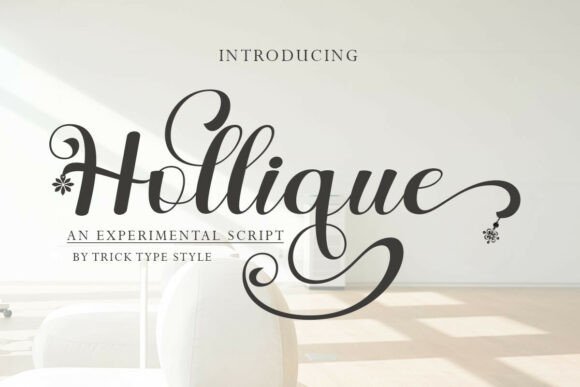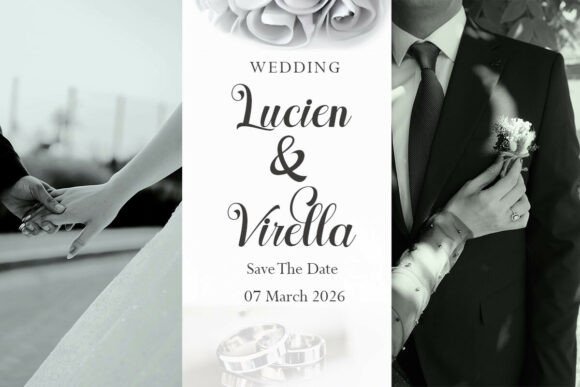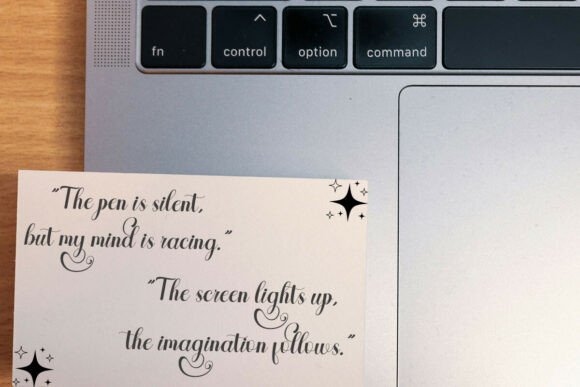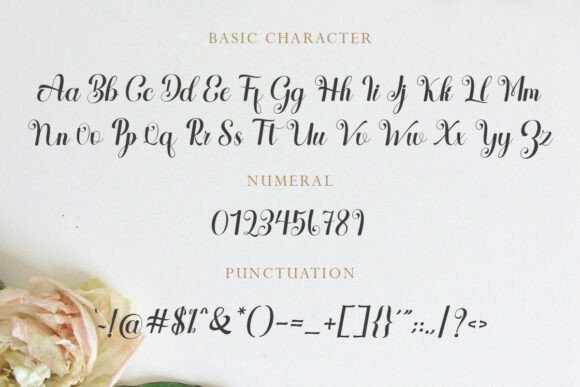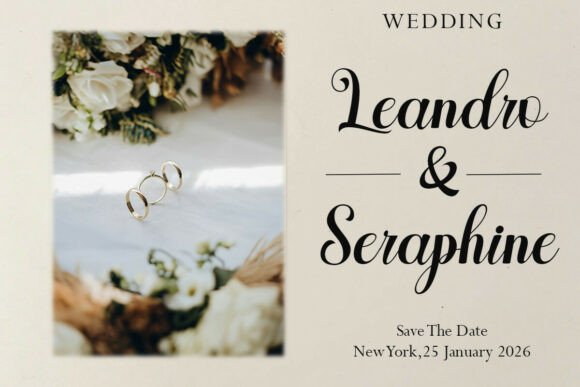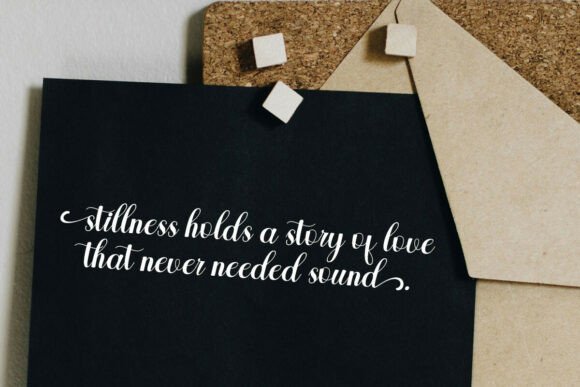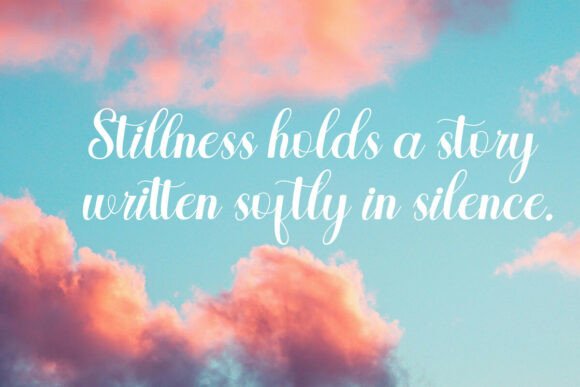
Discover the Art of the Dramatic: Introducing the Hollique Font
Imagine you’re working on a luxury event branding project, and you need a font that exudes opulence and sophistication. You’re browsing through your favorite font libraries, and suddenly, you stumble upon a font that transports you to a world of high fantasy and romance. This is the moment when the Hollique Font reveals itself, with its exaggerated swashes, ornate terminals, and intricate floral motifs.
The Hollique Font is an experimental script typeface that pushes the boundaries of traditional calligraphy. Its high weight and dramatic loops make it perfect for designs that require a bold statement. With its PUA-encoded glyphs, swashes, and alternate characters, you’ll have endless possibilities to customize your creations. Whether you’re working on a premium wine label or a theatrical title, the Hollique Font is sure to make your designs stand out.
Hollique Font Key Features
- Unique Characteristics: The Hollique font features a unique blend of elegant and modern design elements, making it perfect for luxury and high-end branding
- Language Support: Supports multiple languages, including Latin, Cyrillic, and Greek scripts
- Kerning and Ligatures: Includes advanced kerning and ligature pairs for smooth text rendering
Hollique Font Review
Overall, I think the Hollique font is a beautiful and elegant addition to any design project. ✨ It has a unique, handwritten feel that adds a touch of sophistication and whimsy to any text.
- ✨ Elegant and refined design that adds a touch of luxury to any text
- ✨ Perfect for use in branding, packaging, and editorial design
- ✨ Highly customizable, with a range of weights and styles to choose from
- ⚠️ Limited to a single font family, which may not be suitable for projects that require multiple font styles
- ⚠️ Not as versatile as some other fonts, which may limit its use in certain design contexts
- ⚠️ Some users may find the font’s handwritten feel too cursive or ornate for certain design applications
Overall, I think the Hollique font is a great choice for designers who want to add a touch of elegance and sophistication to their projects. While it may have some limitations, its unique design and high level of customization make it a great addition to any design library.
Introduction to Hollique Font
Tips for Getting the Most Out of the Hollique Font
1. Use the Hollique Font for headings and titles to add a touch of elegance.
2. Pair the Hollique Font with a clean sans-serif font for body text.
3. Experiment with different font sizes and styles to create visual interest.
Alternatives to Hollique Font
Pacifico is a beautiful script font that is perfect for creating a warm and elegant look. It is ideal for use in logos, invitations, and other design elements where a touch of sophistication is needed. Pacifico is a bit more elegant and refined compared to Hollique Font, which is more playful and whimsical.
Great Vibes is a stylish script font that is great for use in headings, titles, and other design elements where a sense of excitement and energy is needed. It is similar to Hollique Font in terms of its playful and creative vibe, but has a more modern and edgy feel.
Alex Brush is a elegant and refined script font that is perfect for use in logos, branding, and other design elements where a sense of sophistication and elegance is needed. It is similar to Hollique Font in terms of its flowing and cursive feel, but has a more classic and timeless look.